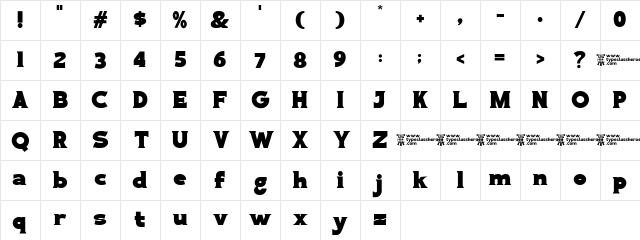
Fiore Ebrey Demo Regular Free Font
Fiore Ebrey Demo Regular
Foundry: Suandana Ipandemade
Designer: Suandana Ipandemade
Design Context for Fiore Ebrey Demo
Fiore Ebrey Demo is a composed and adaptable typeface that performs quietly and consistently across a wide range of design contexts.